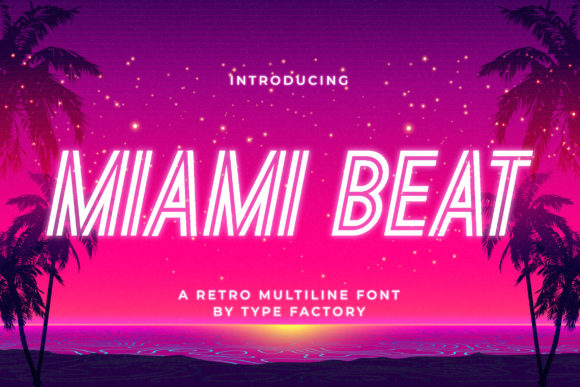
Welcome to the dynamic world of Miami Beat, a captivating display font designed to ignite creativity. Miami Beat's vintage charm adds a touch of nostalgia to contemporary designs, making it the perfect choice for those seeking a harmonious blend of past and present.
Indulge in the endless possibilities that await, as Miami Beat effortlessly elevates your branding endeavors. Craft eye-catching logos that exude a timeless appeal, or design captivating labels that evoke a sense of authenticity. Unleash your creativity and watch as Miami Beat transforms your designs into masterpieces that resonate with your target audience.
Step into the realm of boundless imagination, where Miami Beat empowers you to create bespoke greeting cards that convey heartfelt messages with a touch of retro flair. Let your imagination soar as you design invitations that set the tone for unforgettable events. With Miami Beat as your creative companion, every project becomes an opportunity to weave a captivating narrative.
Miami Beat's versatility extends far beyond traditional design applications. Embrace its charm in the digital realm, where it lends a touch of elegance to website designs and social media graphics. Capture the attention of your audience with visually stunning posts that radiate a vintage allure.
But Miami Beat's allure extends beyond its aesthetic appeal. Its meticulously crafted characters ensure effortless readability, making it an ideal choice for extended text passages. Whether you're crafting captivating brochures or informative website content, Miami Beat guarantees a seamless reading experience.
Join the ranks of creative visionaries who have embraced Miami Beat's transformative power. Let its timeless design elevate your projects, evoke emotions, and forge lasting connections with your audience. Download Miami Beat today and embark on a creative journey that knows no bounds.